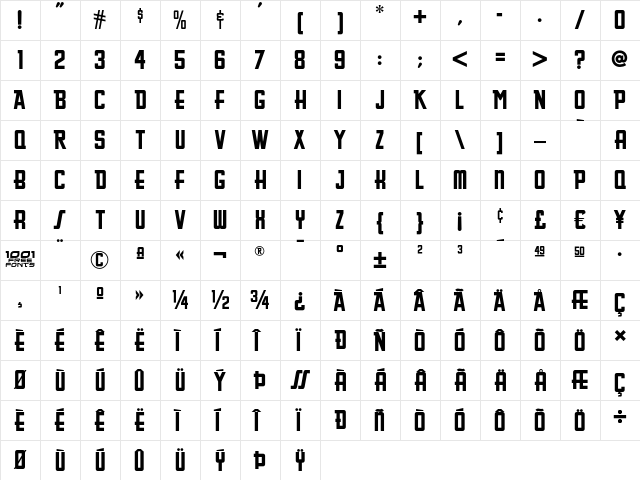
Greasy Spoon NF Regular
Regular · Nick's Fonts Nick Curtis ·
Design Context for Greasy Spoon NF Typeface
Greasy Spoon NF is a composed and adaptable typeface that performs quietly and consistently across a wide range of design contexts.